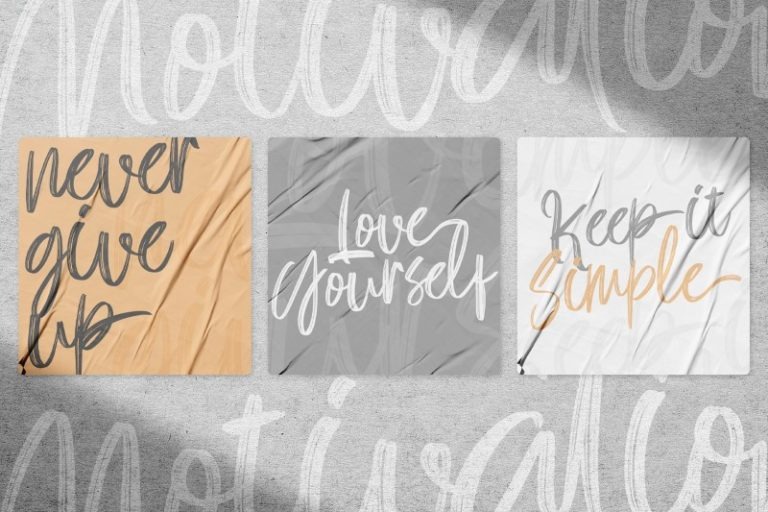
Jotted Dream Font
Jotted Dream Brush Font
This typeface designed by Din Studio is a beautiful script font with rough brush style. Is a font style that is made with scratches and curvature brush shapes font characters are very beautiful. Great choice for your logo, book cover, poster, t-shirt, branding, and advertisement needs.